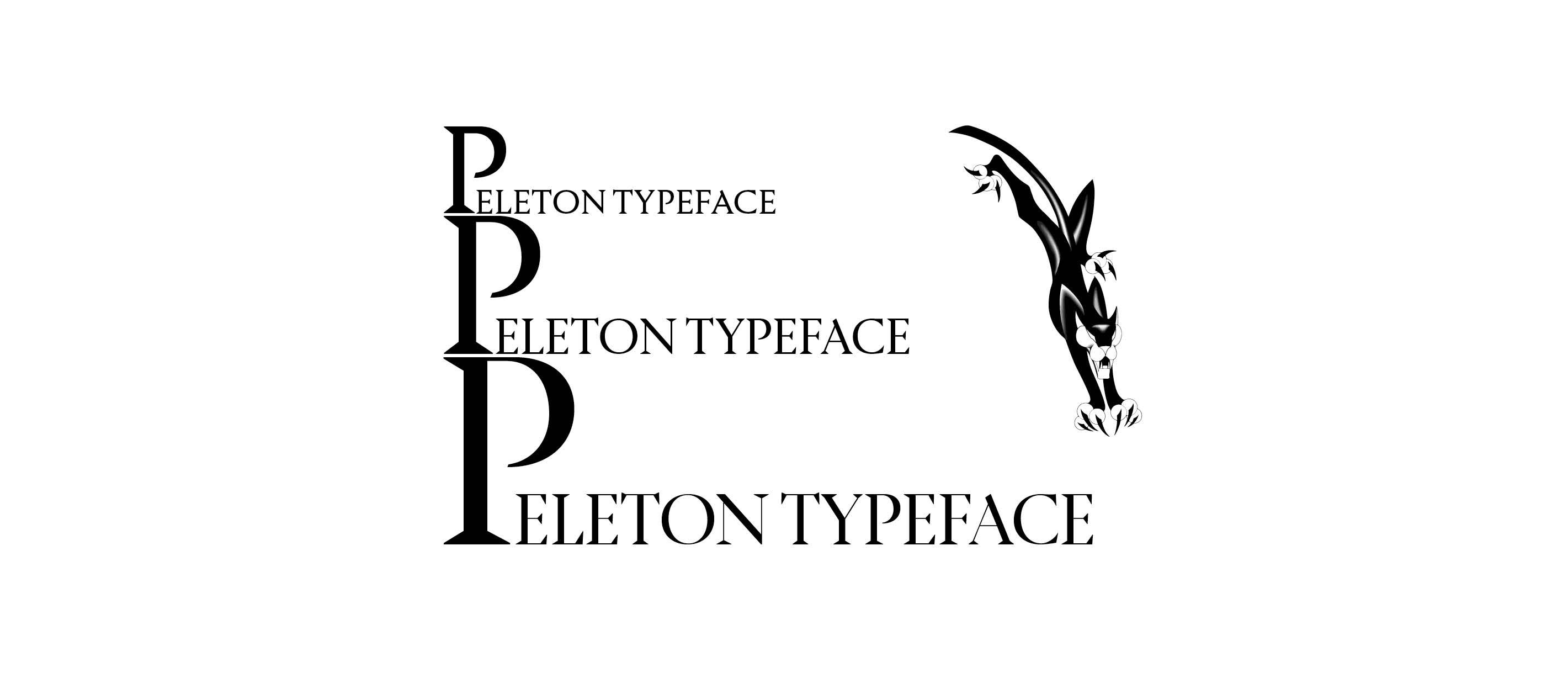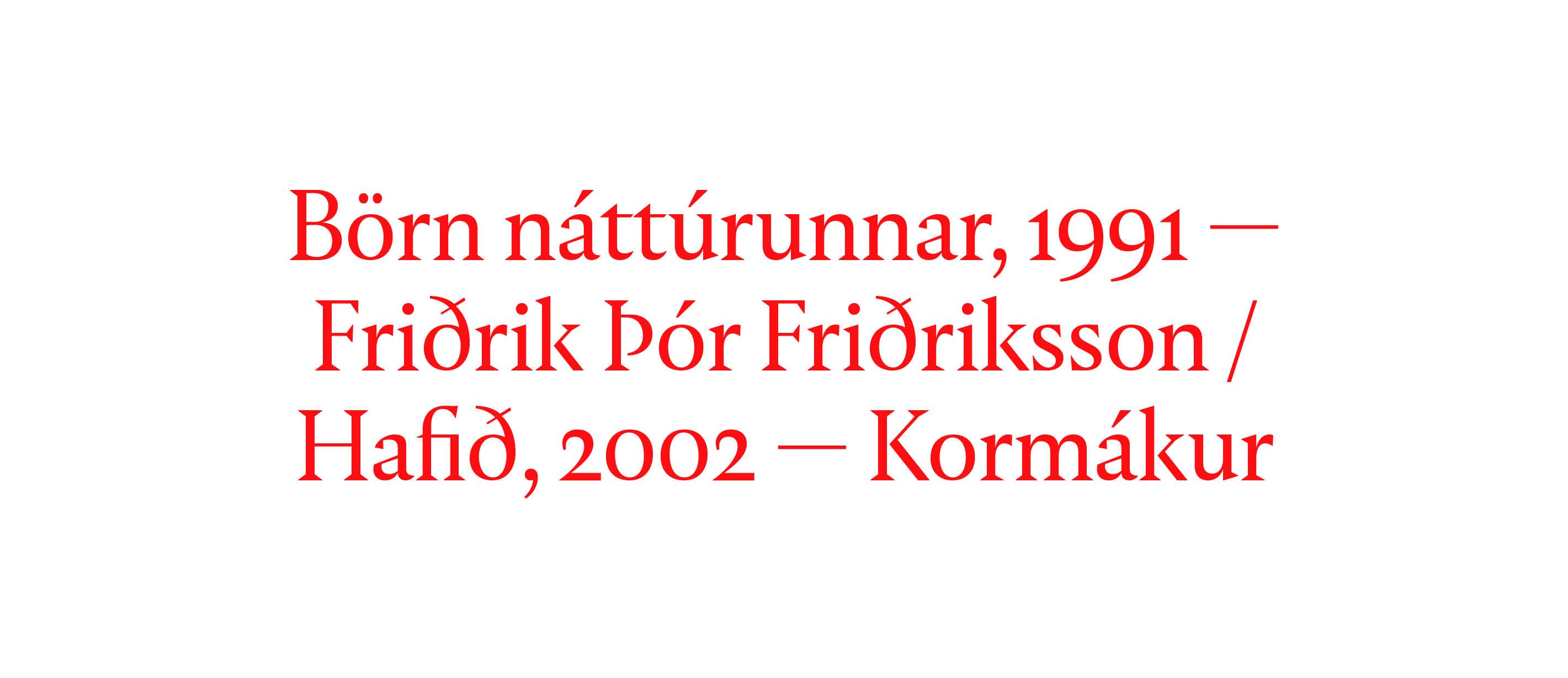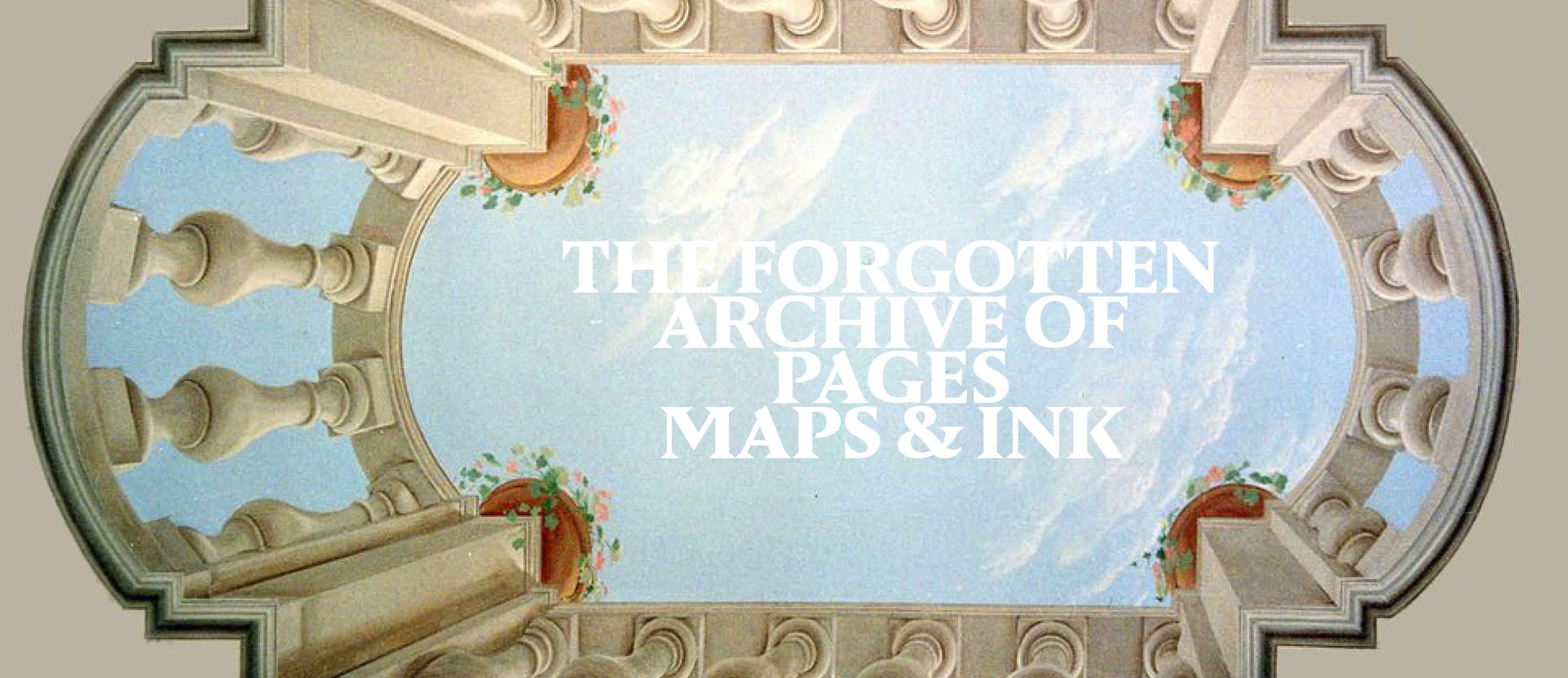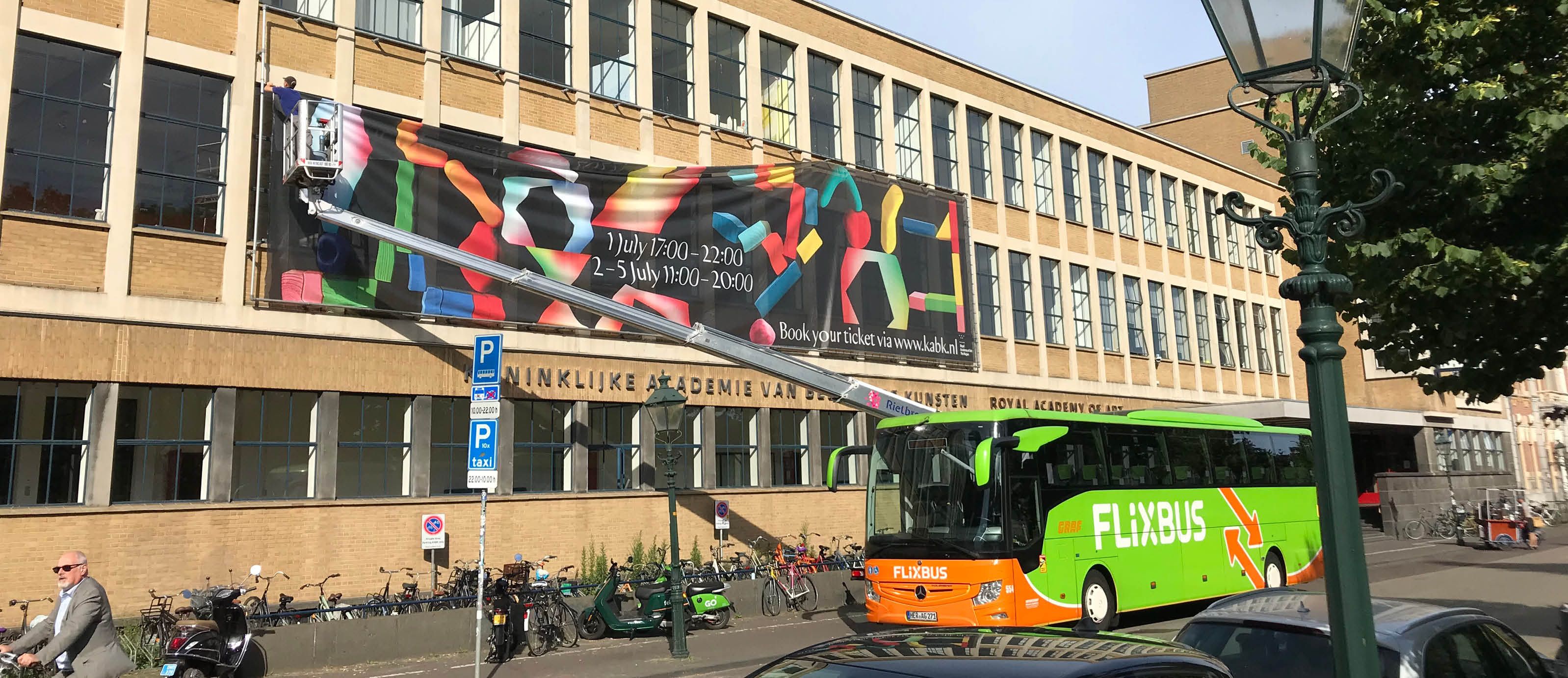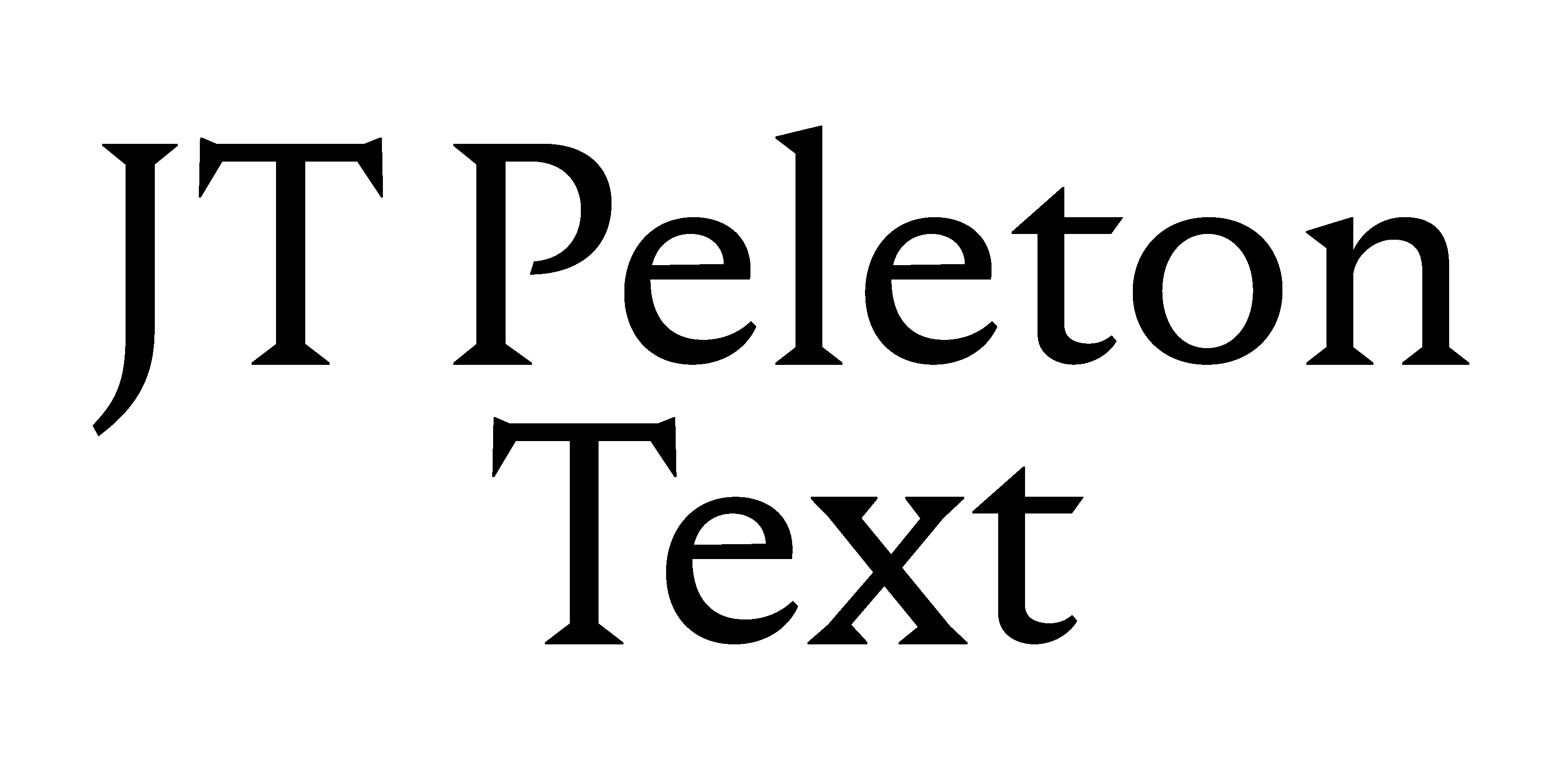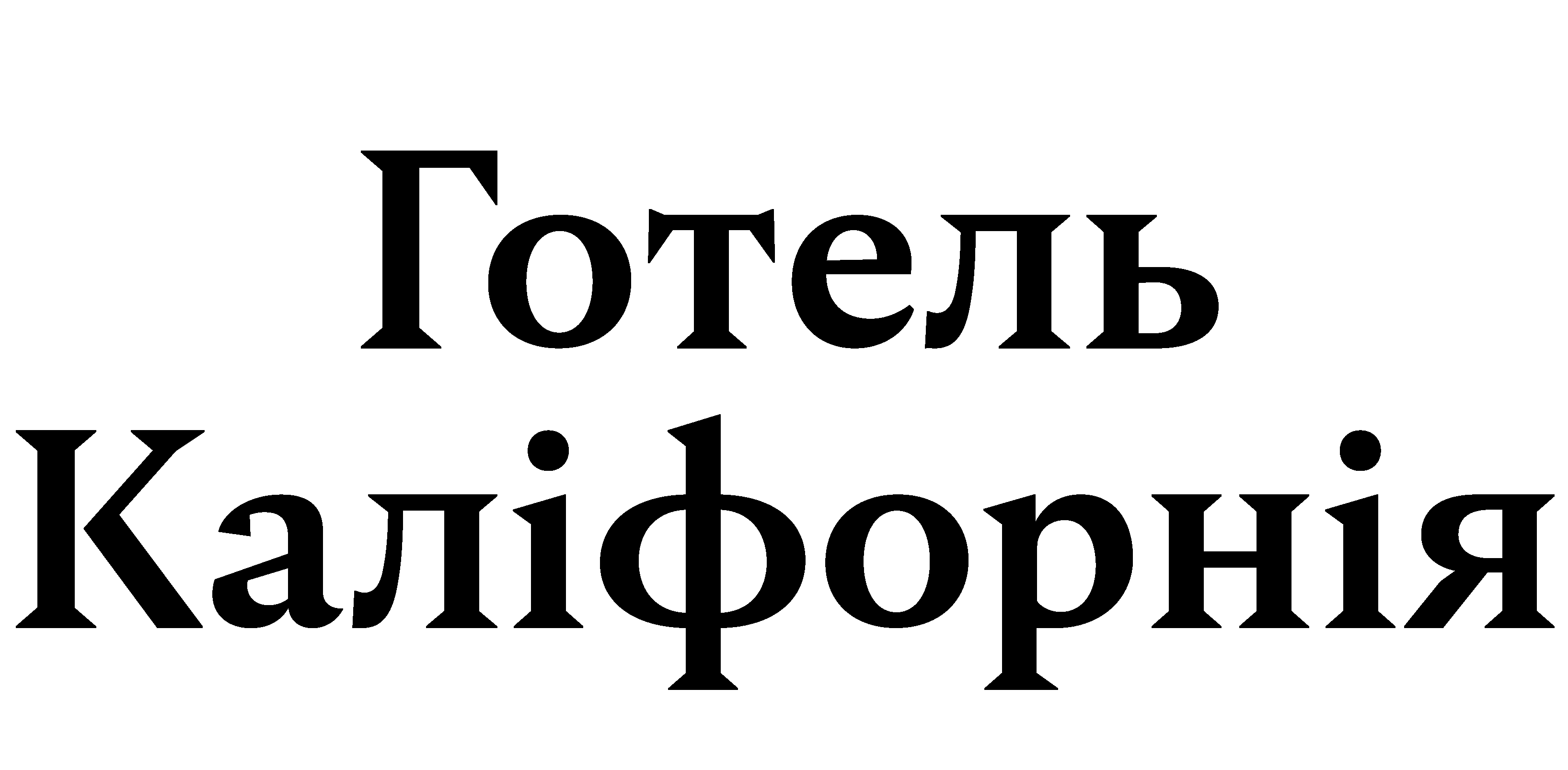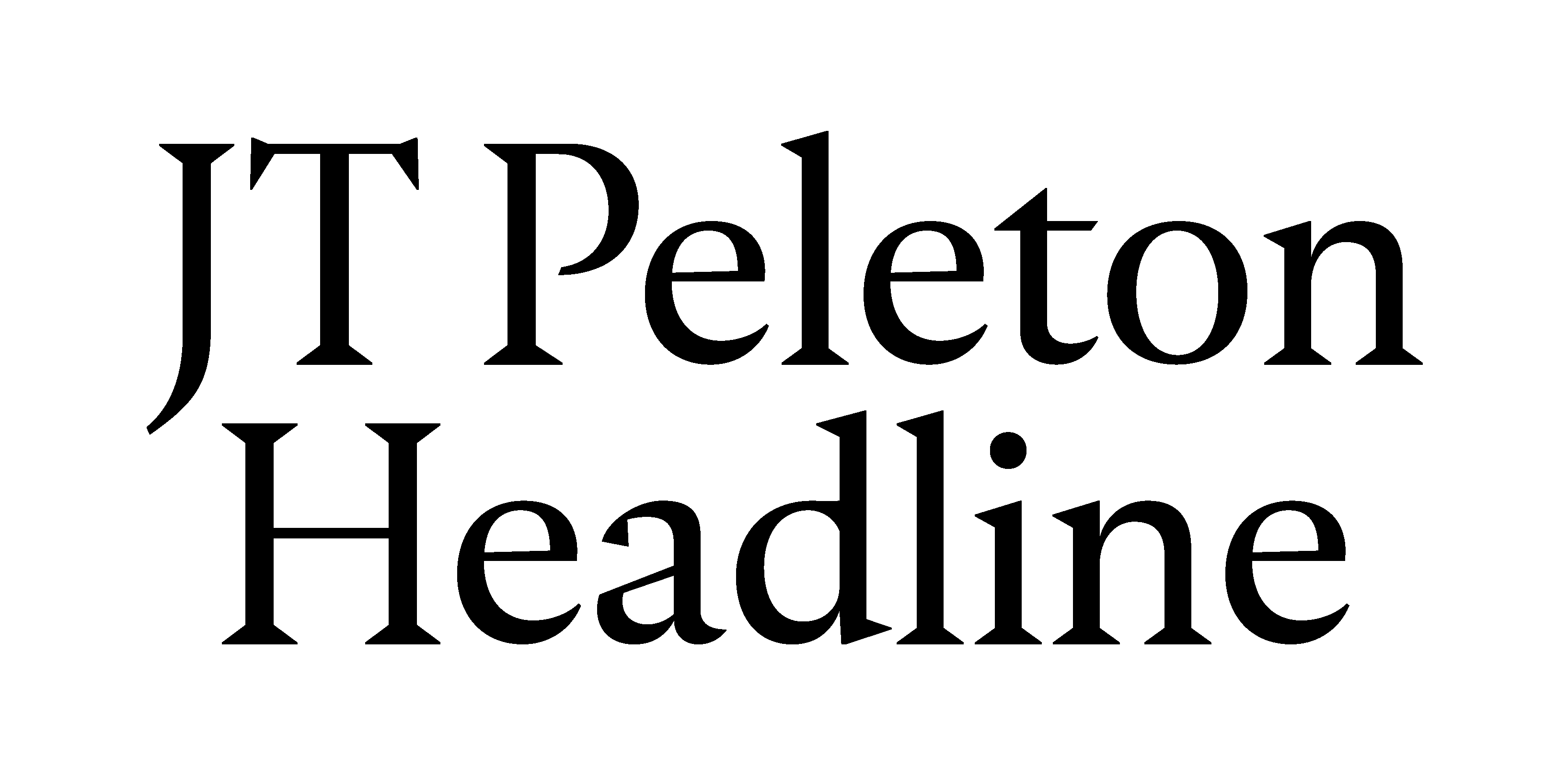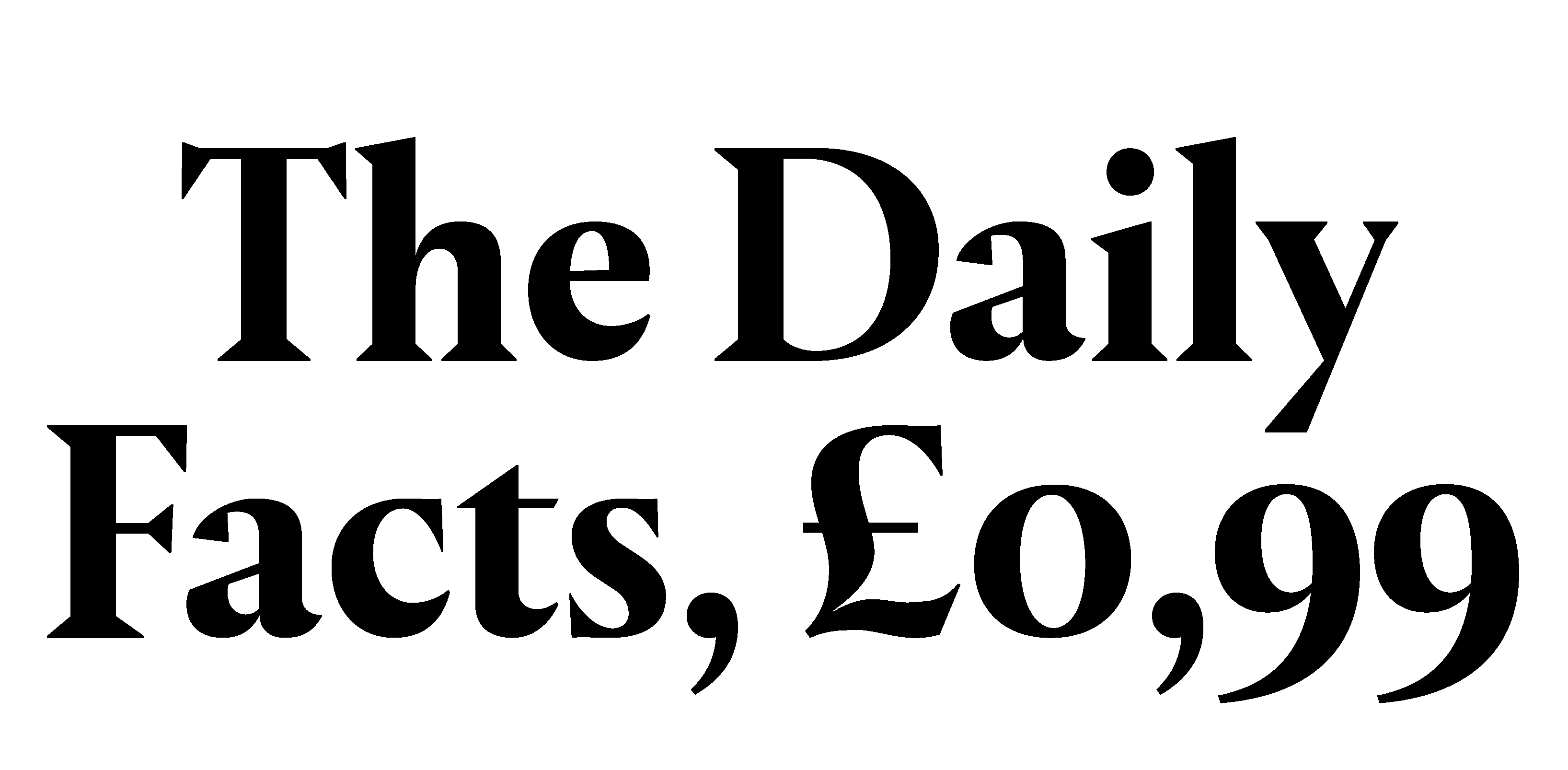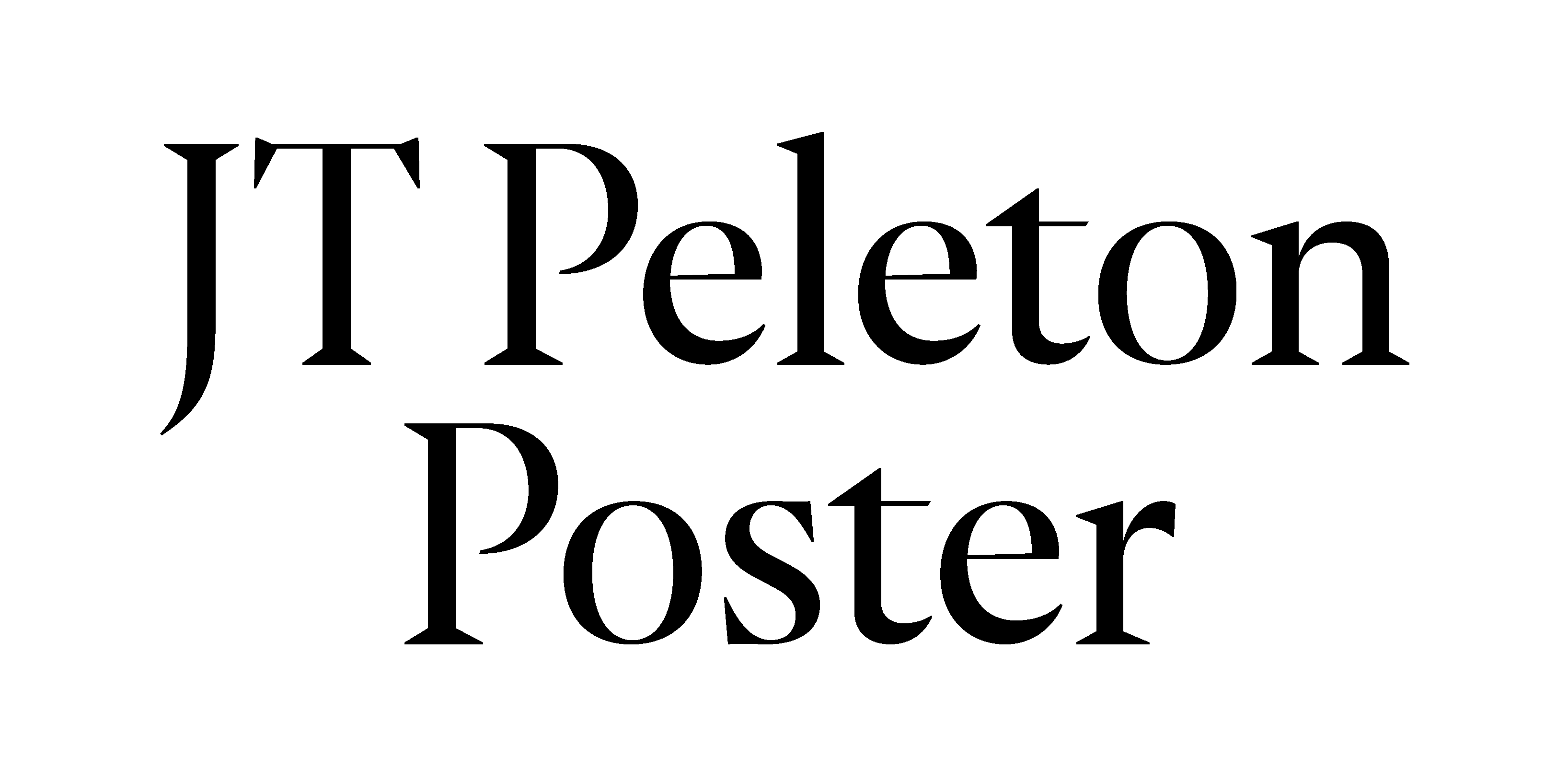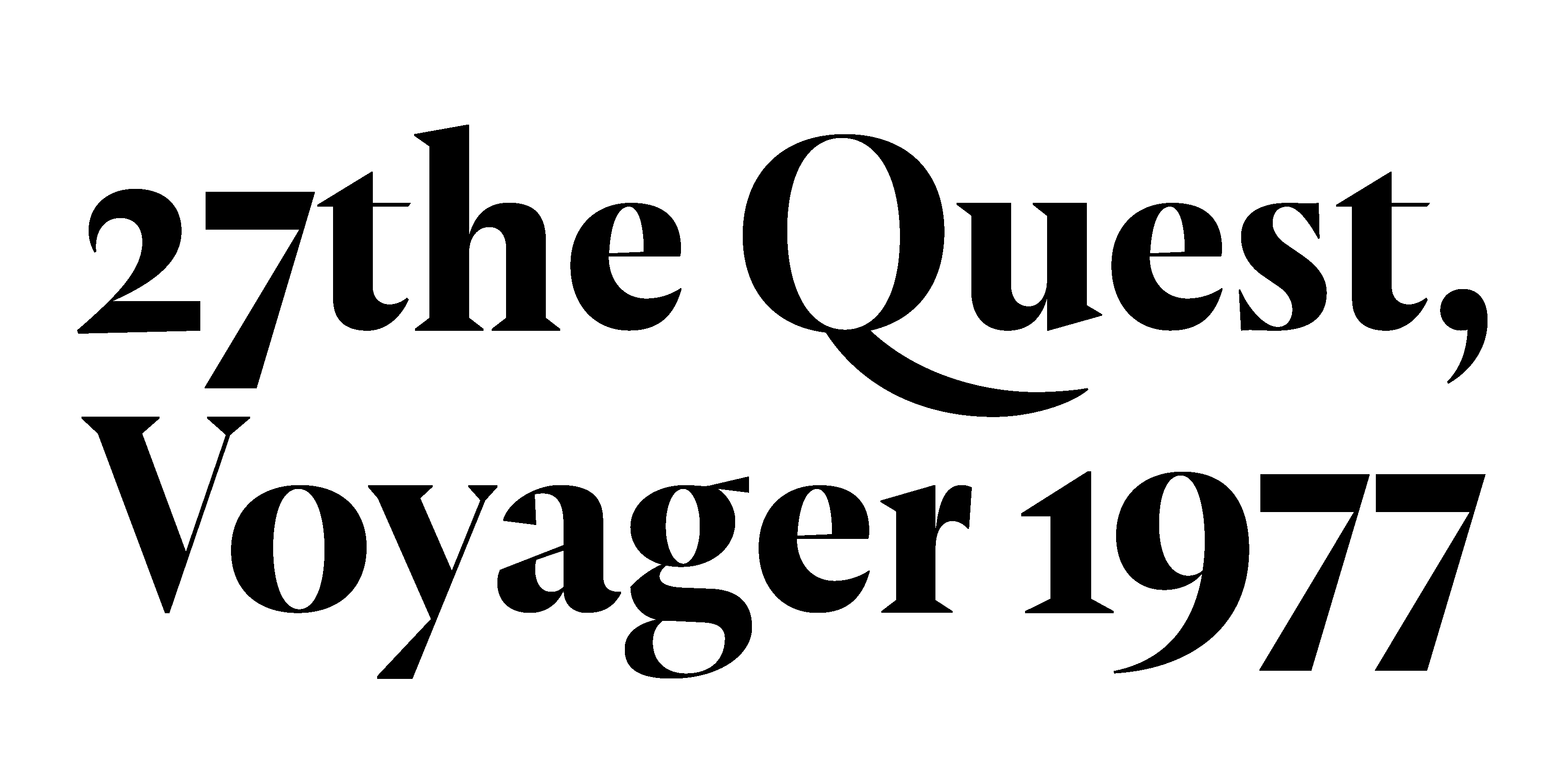
The development of the Jt Peleton typeface is a journey through time, echoing the elegance of 1800s wedge serif genres while seamlessly incorporating contemporary adjustments. Jt Peleton's distinctive wedge serifs pay homage to the historical elegance of inscriptions on ancient monuments. Jt Peleton harmonizes tradition with contemporary nuances, featuring a generous x-height and modern letter proportions while maintaining wider features for letters like O or C. To enhance user options, it introduces alternative versions for A, M, g, the numeral 5, and the Cyrillic б. The typeface offers three optical sizes. The Text style, characterized by balanced proportions and thoughtful spacing, is carefully designed for extended reading, ensuring optimal legibility and comfort. Ideal for conveying information in books or magazines, it combines classic style and modern use effortlessly.
The Headline style takes on bigger sizes, specifically made for titles. With distinct serifs and high contrasts, it stands out in headers, adding sophistication to larger text elements while staying easy to read. Peleton's Poster style is made for large-size typography, featuring close letter spacing for a strong impact on posters and signs. As the most expressive of the three styles, it grabs attention and makes a bold visual statement. The typeface extends its functionality by providing Cyrillic support, catering to a broader range of users. With its distinctive wedge serifs and thoughtfully crafted optical sizes, Peleton emerges as a comprehensive typeface, offering a nuanced and sophisticated solution for designers seeking a harmonious blend of timeless charm and modern functionality.